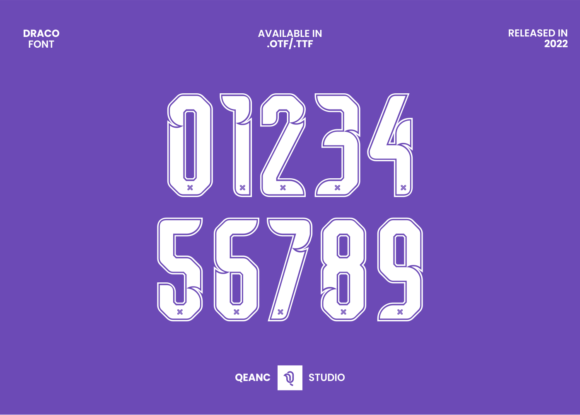
Introducing Draco Font, the ultimate choice for digital display enthusiasts! Crafted by the talented Qeanc Studio, this decorative font is a game-changer when it comes to adding a touch of modernity and excitement to your projects. Are you ready to take your designs to the next level? Let Draco Font be your secret weapon!
Inspired by the electrifying world of football, Draco Font boasts a captivating aesthetic that will instantly captivate your audience. With its sleek and dynamic design, it effortlessly captures the essence of sports and racing-themed projects. Whether you're creating logos, posters, t-shirts, or any other creative endeavor, this font will elevate your ideas to new heights.
But what sets Draco Font apart from the rest? Well, it's not just its stylish appearance. This font is meticulously designed to ensure optimal legibility and readability, even in digital displays. Say goodbye to blurry letters and hello to crisp, clear text that demands attention. Your message will shine through effortlessly, leaving a lasting impression on your viewers.
Furthermore, Draco Font is incredibly versatile. Its bold and confident demeanor makes it suitable for a wide range of applications. From sports events and team branding to gaming websites and fitness apparel, this font adapts seamlessly to any design context. Unleash your creativity and watch as Draco Font transforms your vision into a stunning reality.
Embrace the power of Draco Font and witness the magic it brings to your creative projects. Its irresistible charm and modernity will draw eyes towards your work, making it impossible to ignore. Stand out from the crowd and make a statement with every stroke of this remarkable font.
Downloading Draco Font is like unlocking a world of endless possibilities. As you explore its diverse range of styles and characters, you'll discover new ways to express your ideas and leave a lasting impact on your audience. Let your imagination run wild and watch as this font breathes life into your designs.